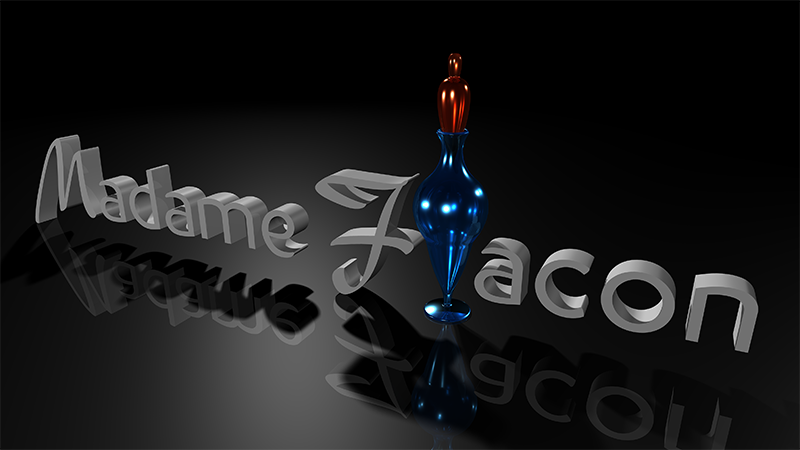
Font name: | Madame Flacon |
Author: | Dag@bert |
Note by Dag@bert | |
"Madame Flacon" is inspired by the logo of • Marionnaud Parfumeries SA http://www.marionnaud.fr The logo itself is similar to fonts like • Co Text by Dalton Maag https://www.daltonmaag.com/library/co • Cyntho Pro by Mint Type https://www.myfonts.com/fonts/konstantynov/cyntho-pro • Dax by Hans Reichel https://www.myfonts.com/search/Dax • New Berolina by Monotype Corporation and/or Adobe https://www.myfonts.com/search/new+berolina Though I'm not very interested in parfums or things around, this logo always was an eye-catcher for me. I'm still fascinated by the combination of the lines and the harmony how two different styles of fonts can play together. But none of these fonts above gives a feeling of the Marionnaud logo. And none of these fonts has two different styles included - handwriting combined with regular characters. I searched a while for a comparable font but finally I decided to do one by myself. Readabiltity even with very small sizes was an important point too. Of course my font is similar to the fonts above (and the logo) as well, but each single character is different to them and drawn new by myself. I'm happy with the result and hope you like it too. Enjoy ! This font is free for personal use. If you wish to use it for a commercial purpose, contact me please. |